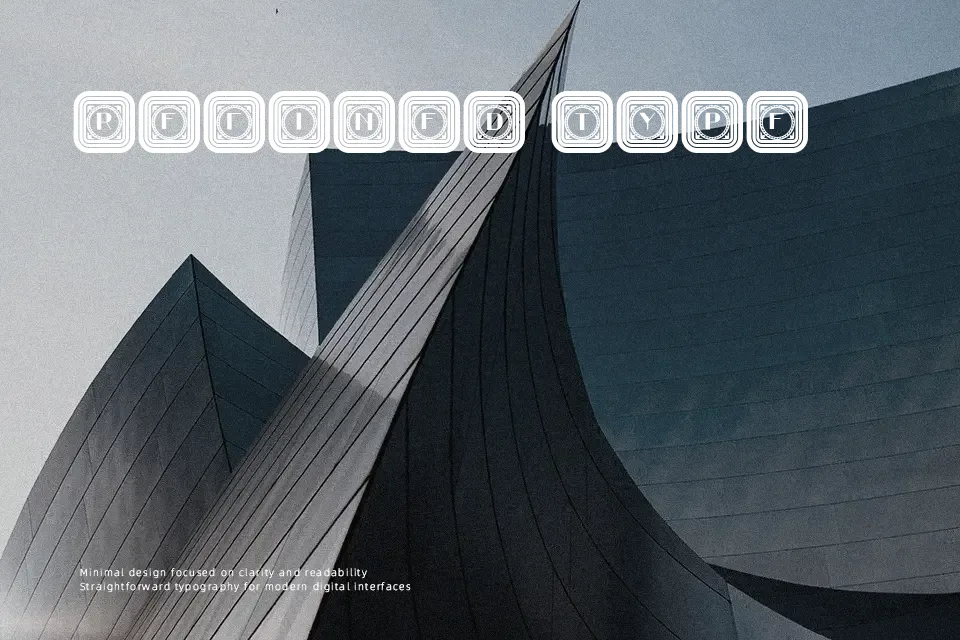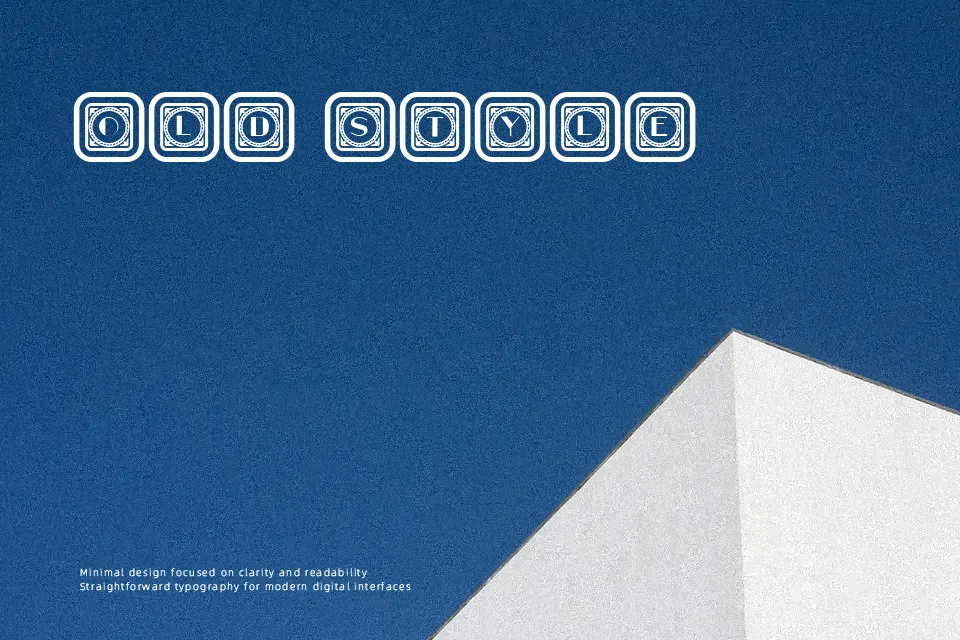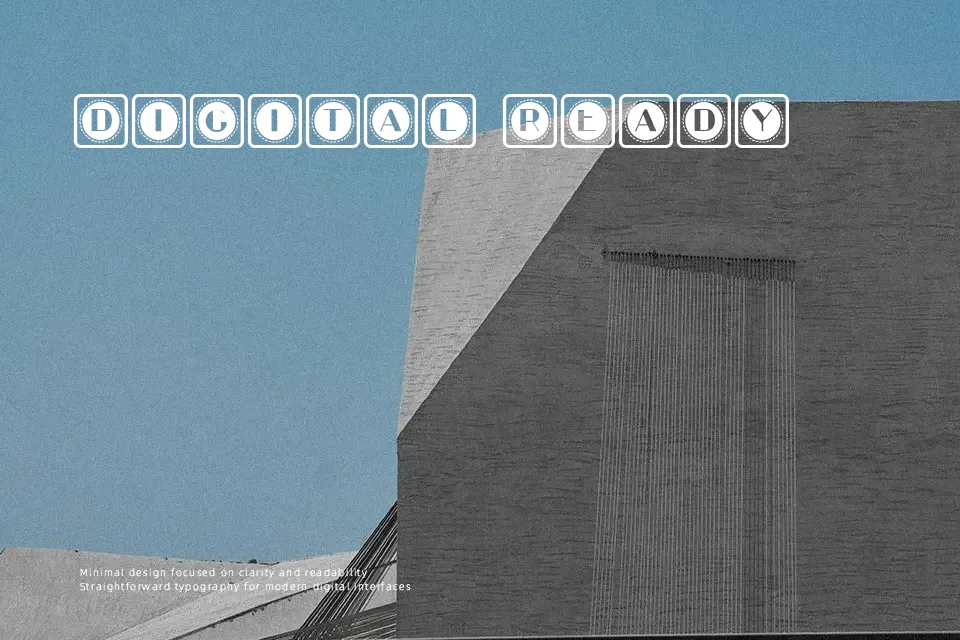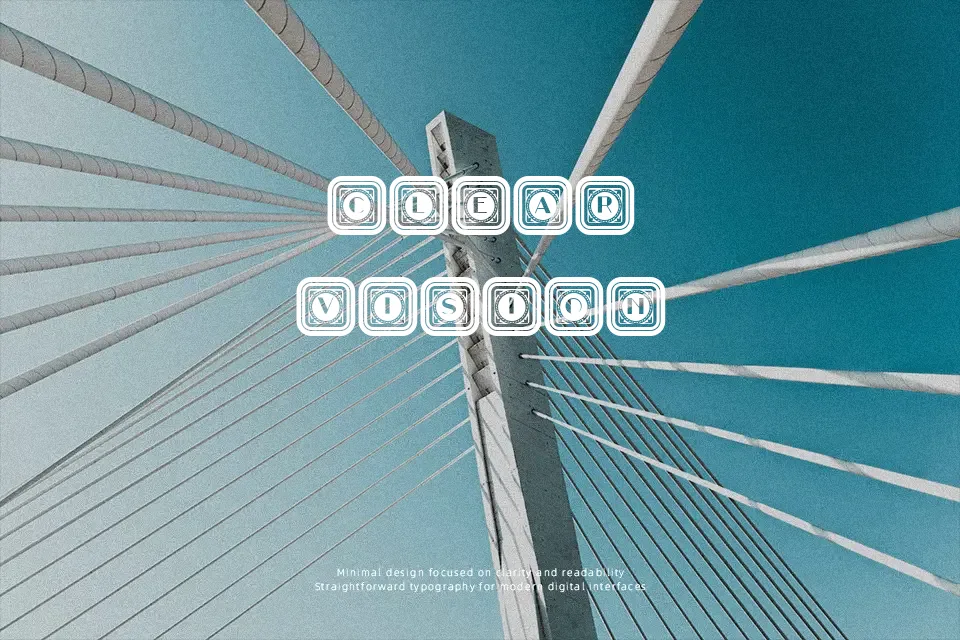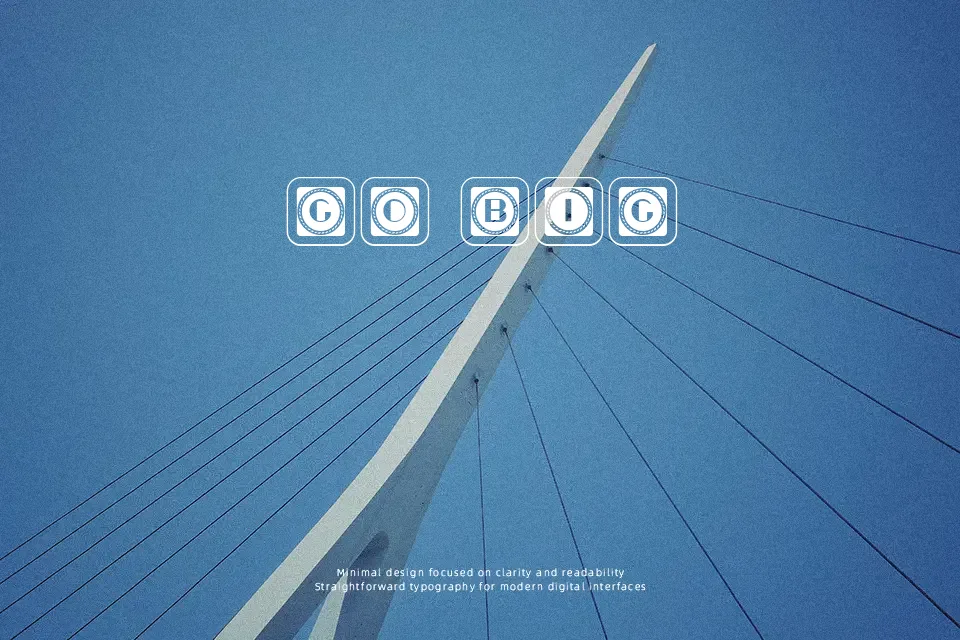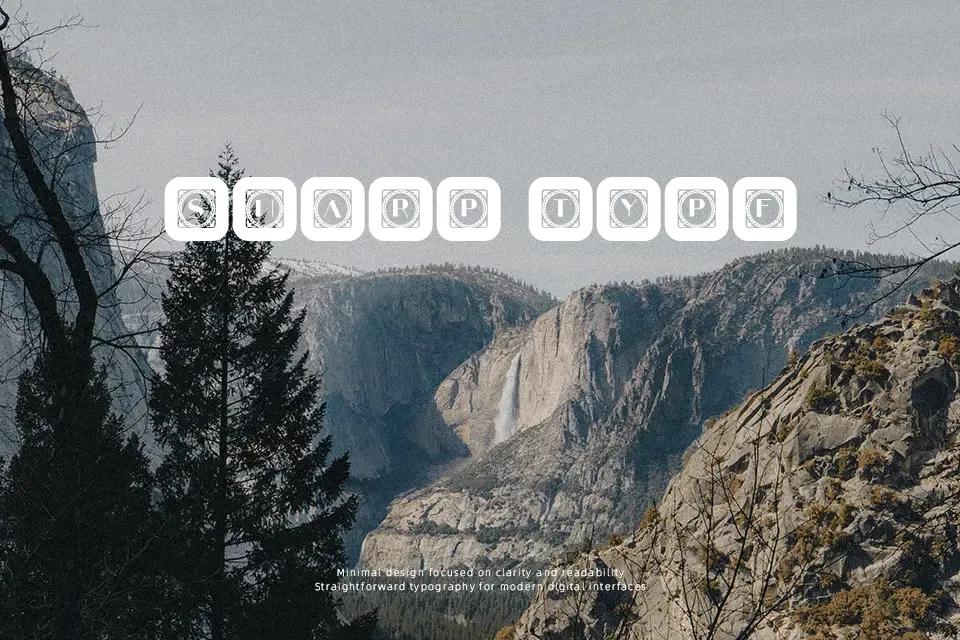
Retrospective Capitals Font
The structural elegance of Retrospective Capitals Font immediately draws the eye with its intricate, vintage-inspired uppercase letterforms. Built for prominent display use, the typography features robust strokes and balanced, commanding proportions that anchor a page beautifully. The generous internal spacing helps maintain clarity in larger headlines and decorative drop caps. Designed specifically for high-impact scenarios, these characters excel in antique packaging, luxury branding, and editorial title treatments. However, the ornate detailing and exclusively uppercase nature mean the design becomes less effective at smaller sizes or in continuous reading environments. Ultimately, the typeface performs best when allowed ample space to showcase its classic complexity.
Best For: vintage product packaging, historical poster headlines, editorial drop caps, luxury branding
Not Ideal For: long paragraph text, small interface labels, dense editorial layouts
Perfect for editorial, headline, and packaging, with a classic and decorative style.